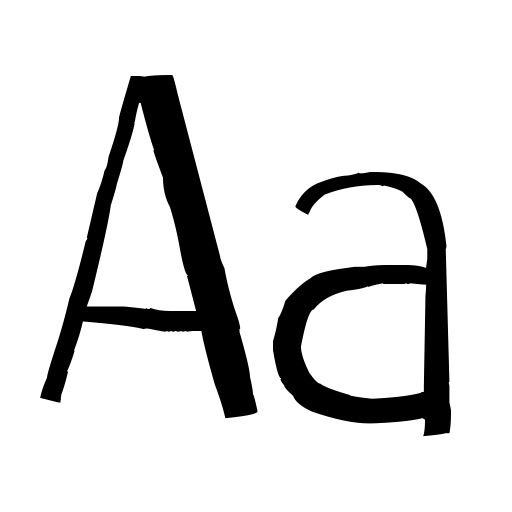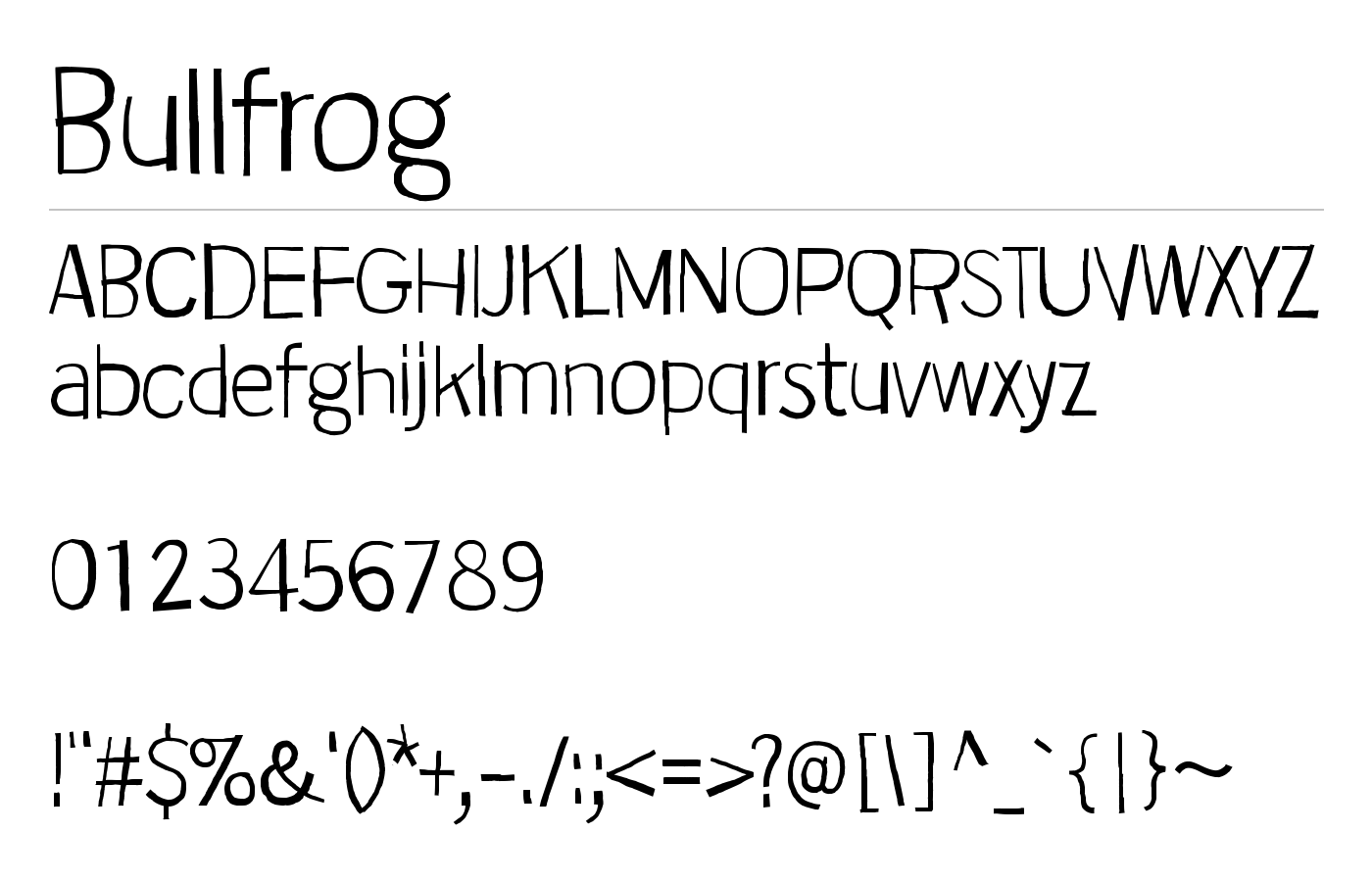
Bullfrog is a quirky, hand-drawn sans serif font with a playful and informal look, characterized by its irregular stroke widths and slightly uneven letterforms. Its narrow width and tall x-height give it a distinct, energetic personality, making it ideal for creative projects, children’s books, casual branding, and fun editorial designs where a human, approachable feel is desired. This font works well in headlines and display use, bringing a lively, handcrafted vibe to designs.
Bullfrog Font
About Bullfrog Font